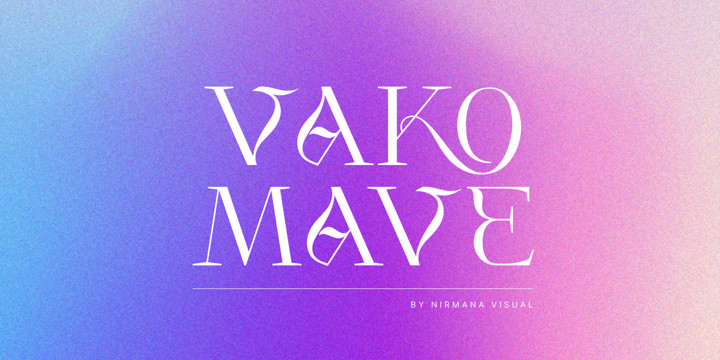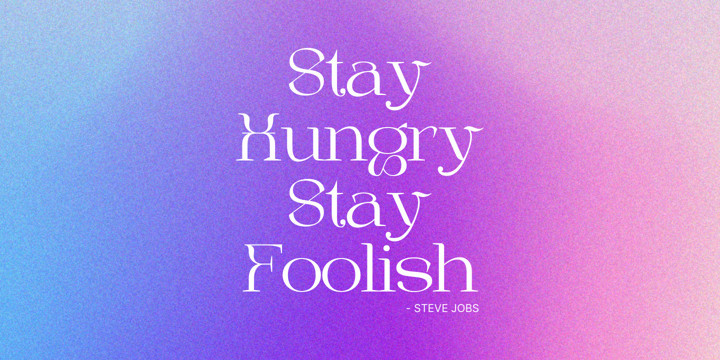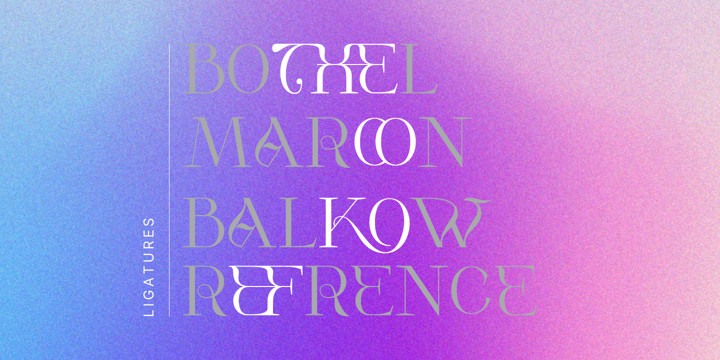
Vako Mave Font
Vako Mave FontVako Mave a modern, contemporary of serif font.
Ideally suited for advertising and packaging, festive occasions, editorial and publishing, creative industries and posters .